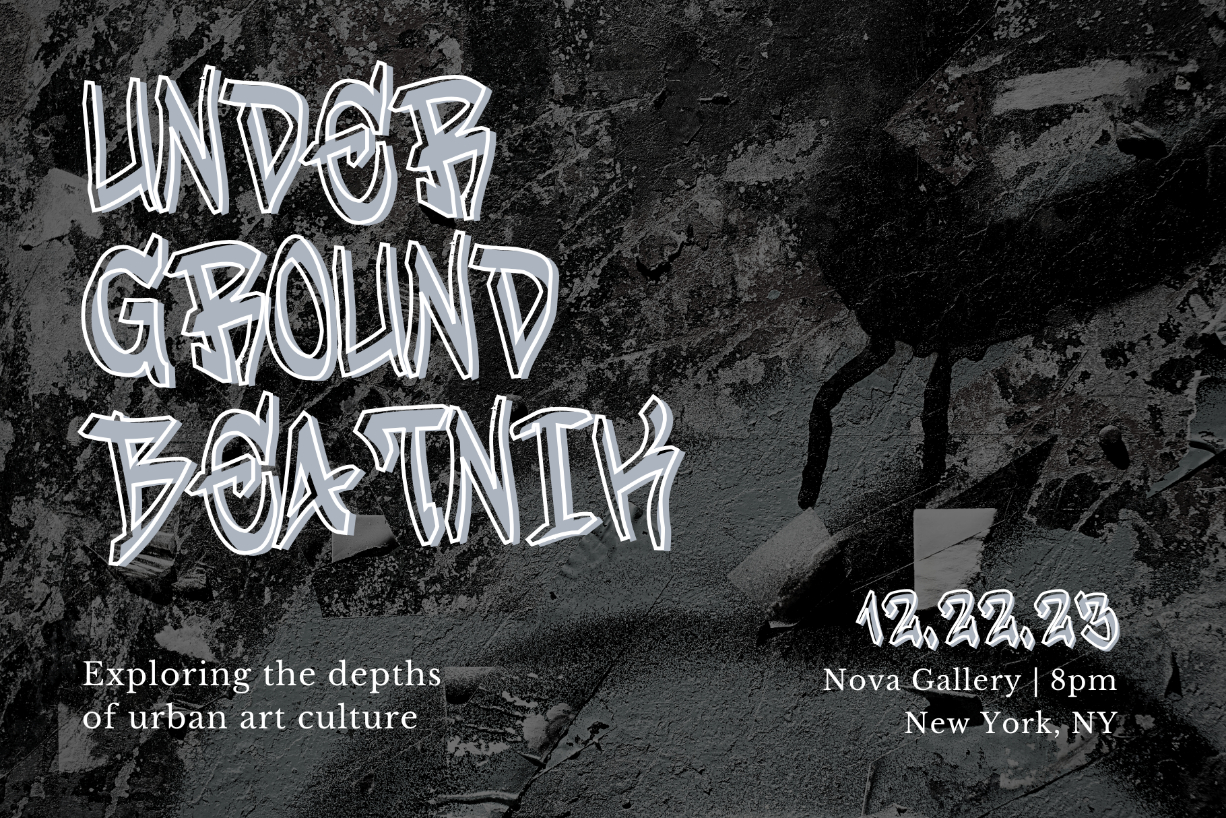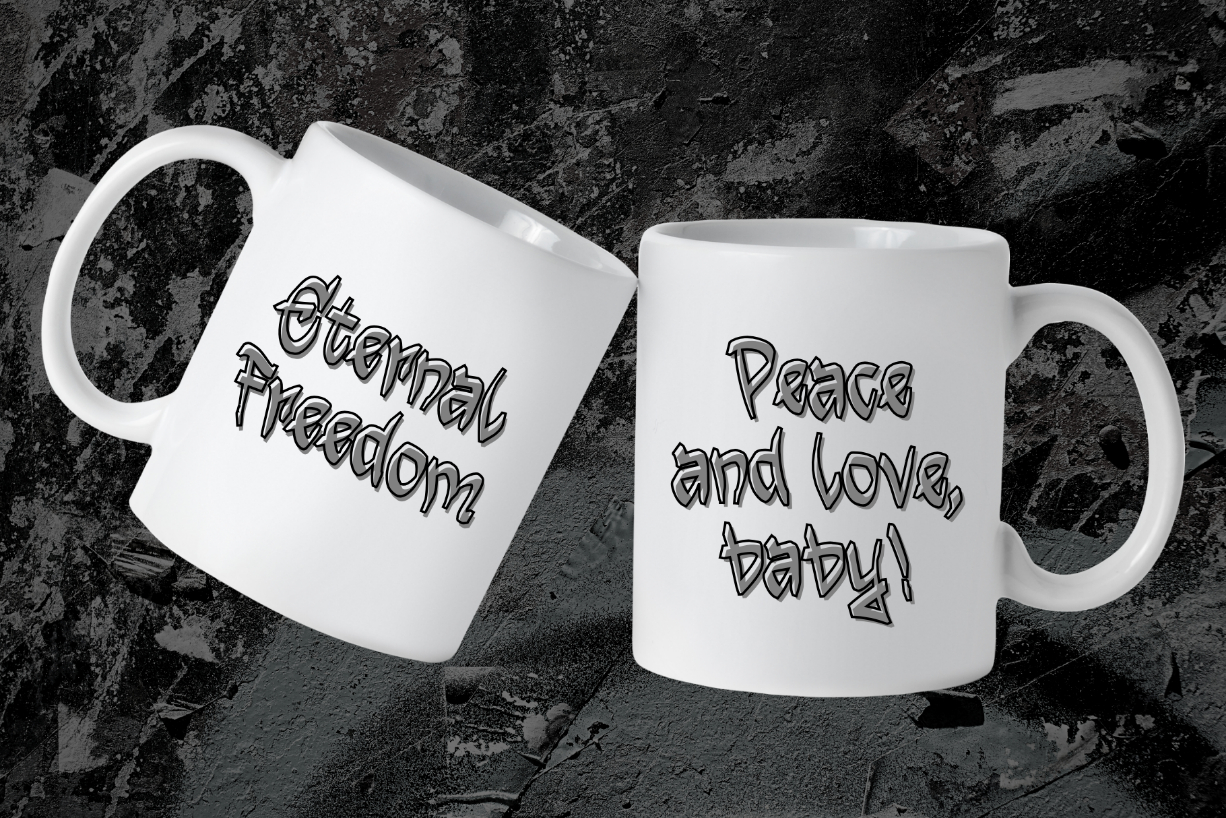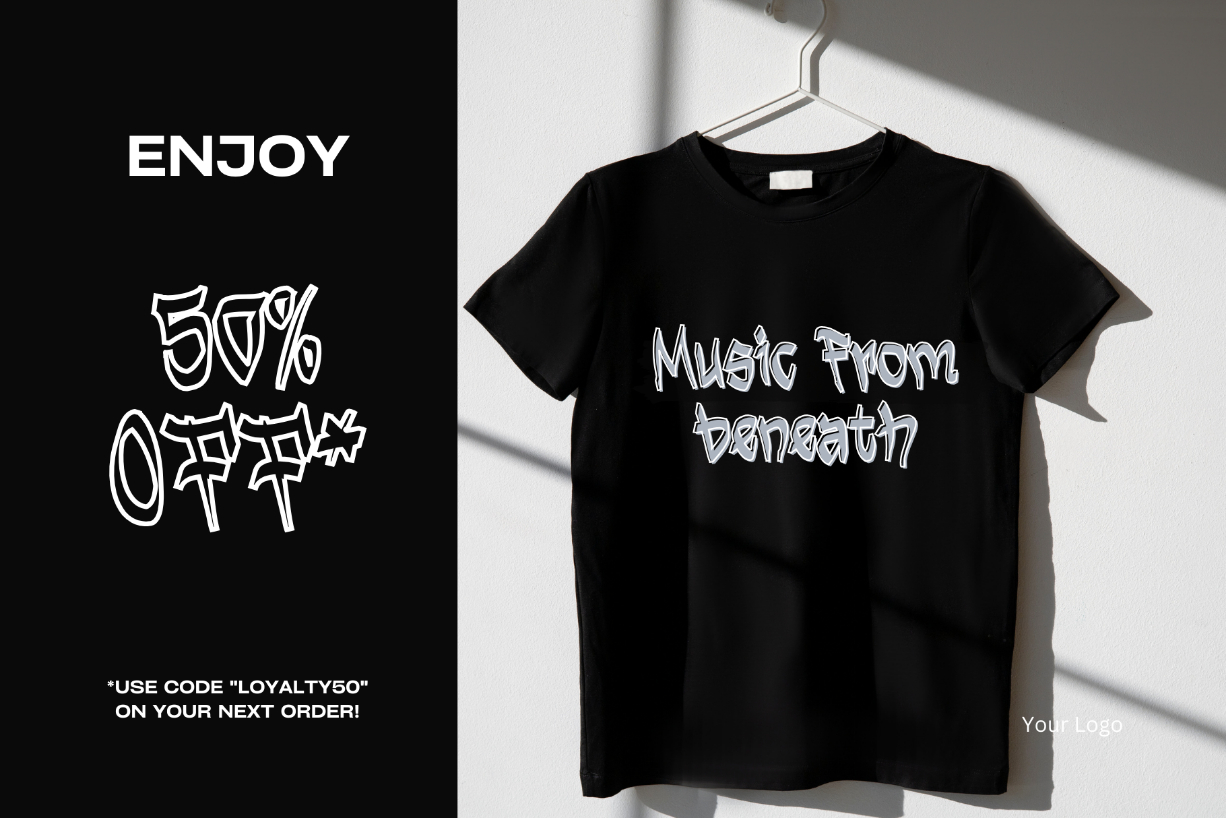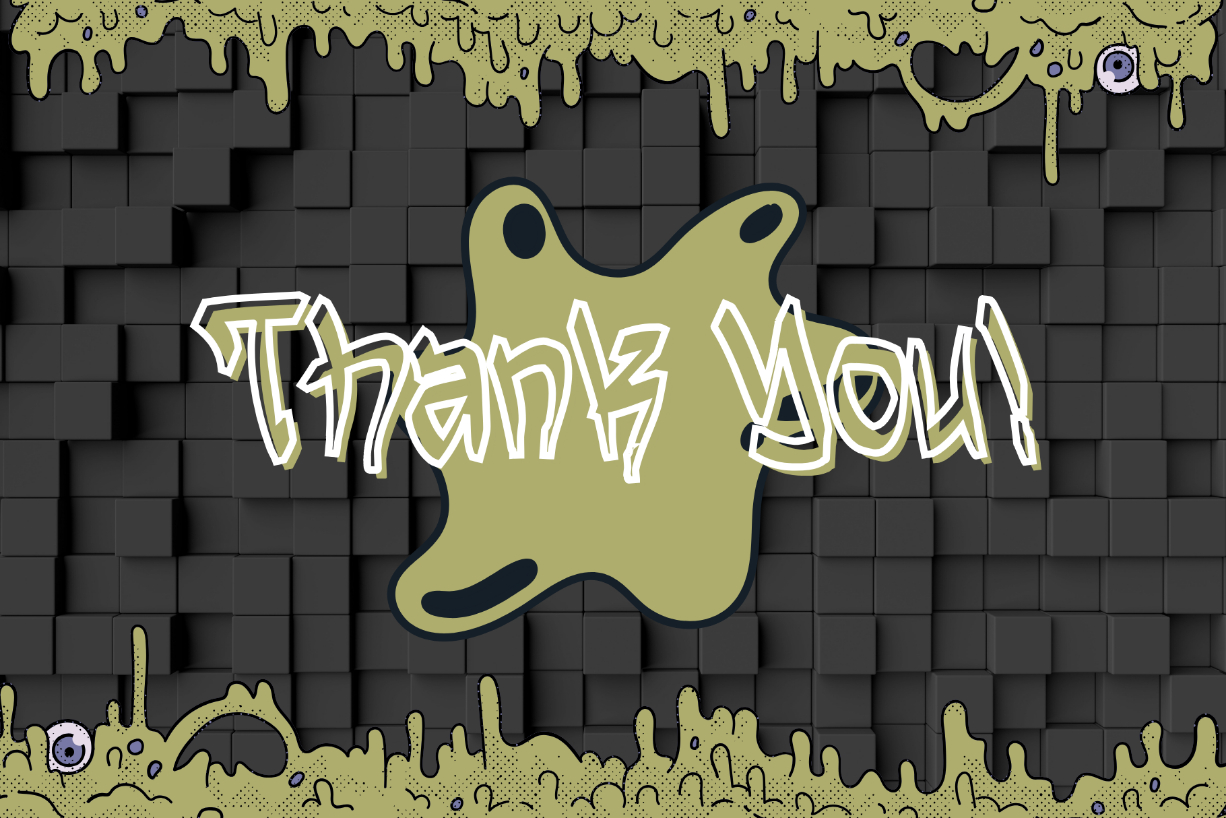
Breakside Font
About Breakside Font
Breakside is a really cool blackletter font. This font comes with uppercase, lowercase, numeral, and punctuation. It is very suitable for use in various purposes of your design, including for Christmas design, New Year, free writing style in outdoor or indoor rooms, jacket designs and other designs.